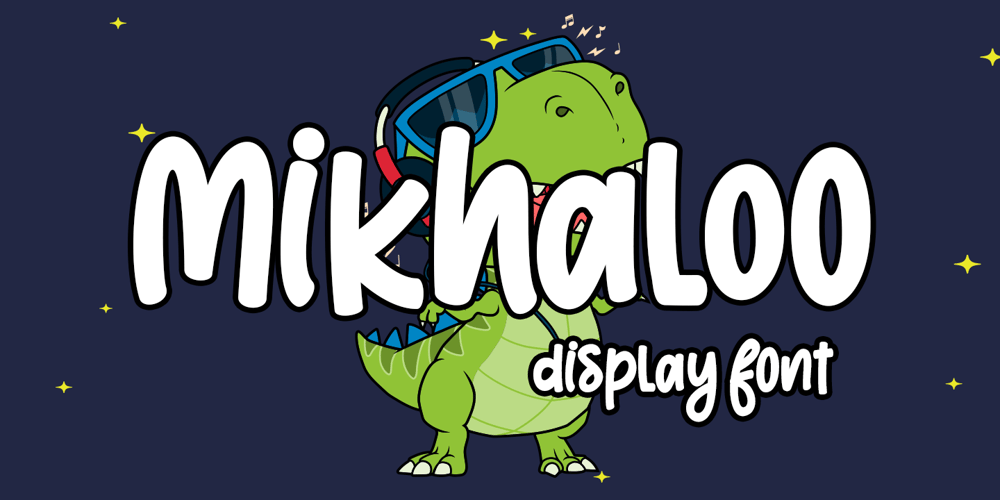
Mikhaloo Font Family was designed by Thomas Aradea and published by Letterara. Mikhaloo contains 2 styles and family package options. Mikhaloo is a bold, playful, and fun display font. Whether you use it for cartoon-related designs, children’s games, or just any creation that requires a lovely touch, this font will be an amazing choice, especially when combined with bright colors. Use it to make your ideas more realistic and create spectacular designs!This font is PUA encoded which means you can access all the beautiful glyphs with ease!